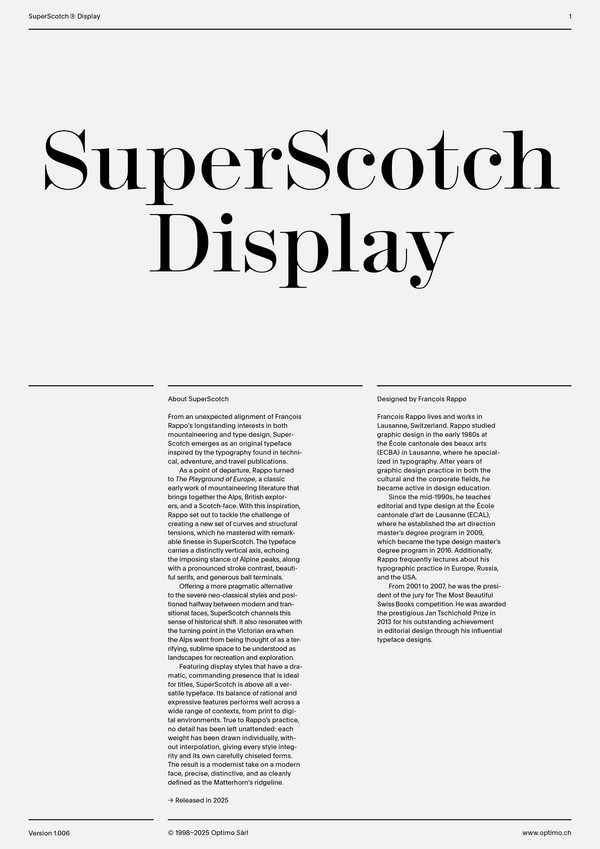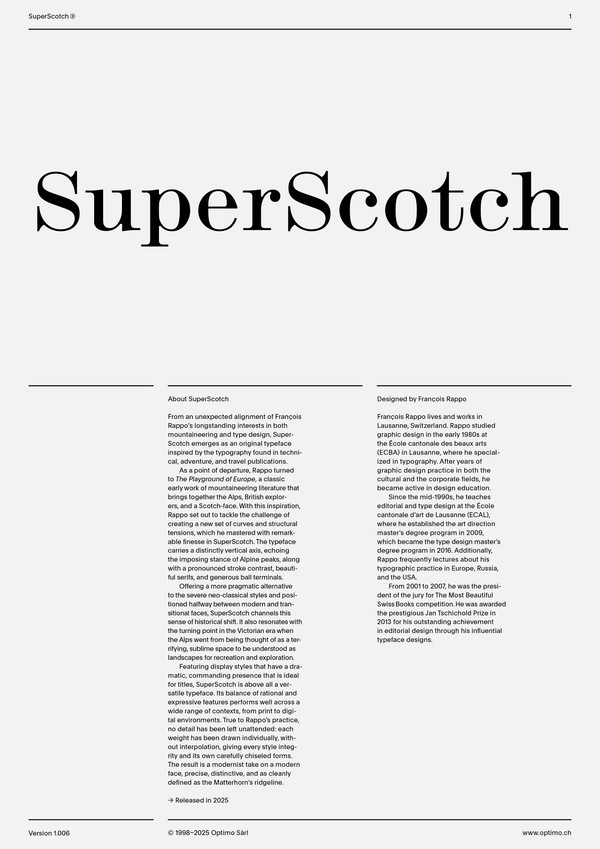
SuperScotch
SuperScotch Display
Case Sensitive Forms
All Caps [cpsp]
Case Sensitive Forms [case]
This function formats the text in uppercase and adjusts spacing between all capital letters. It also applies the ‘Case Sensitive Forms’ feature which replaces certain characters with alternates that are better suited for all capital text, especially related to punctuation.
Contextual Alternates
Contextual Alternates [calt]
This feature adapts the position of a glyph after its surrounding context. For instance, a dash placed between two uppercase letters or numbers will be replaced by an uppercase version of the dash, slightly higher. This feature is usually active by default in Adobe applications.
Alternate T
Stylistic Set 1 [ss01]
This feature replaces glyph(s) with stylistic alternate(s).
Alternate ?
Stylistic Set 2 [ss02]
This feature replaces glyph(s) with stylistic alternate(s).
Alternate 3 5
Stylistic Set 7 [ss07]
This feature replaces glyph(s) with stylistic alternate(s).
Alternate 4
Stylistic Set 8 [ss08]
This feature replaces glyph(s) with stylistic alternate(s).
Alternate g
Stylistic Set 9 [ss09]
This feature replaces glyph(s) with stylistic alternate(s).
Alternate a [uprights only]
Stylistic Set 10 [ss10]
This feature replaces glyph(s) with stylistic alternate(s).
Tabular Lining Figures
Tabular Lining Figures [tnum–lnum]
Based on the proportions of the capitals, lining figures have an invariable height. With the combination of the tabular spacing format, the width of each numeral is uniformized. This feature is useful when numerals need to all lined up. It facilitates the reading of numbers set within columns or tables. As some applications don’t have access to this feature, proportional figures are set as the default choice.
Proportional Oldstyle Figures
Proportional Oldstyle Figures [pnum–onum]
Based on the design of the lowercase, oldstyle figures have varying ascenders and descenders. Like most of the letters, each number has an appropriate width based on its shape. The combination of oldstyle figures with proportional setting generate numerals perfectly adapted for text.
Tabular Oldstyle Figures
Tabular Oldstyle Figures [tnum–onum]
Based on the design of the lowercase, oldstyle figures have varying ascenders and descenders. With the combination of the tabular spacing format, the width of each numeral is uniformized. This feature is useful when numerals need to all lined up. It facilitates the reading of numbers set within columns or tables.
Fractions
With this feature, any numbers separated by a slash will automatically turn into a fraction. To fit in fraction configuration, numerals have been designed smaller and their weights have been adjusted to suit the typeface.
Lowercase math symbols
Stylistic Set 6 [ss06]
This feature activates alternate lowercase positioning of mathematical symbols.
This feature replaces any letter following a numeral with its matching superior letters. French language uses the ordinal indicators such as ‘er’ for 1er premier, while Spanish, Portuguese and Italian require the feminine and masculine ordinals ‘a,’ ‘o’ for 1º, 1ª. Ordinals are designed to match the weight of the typeface.
Slashed Zero
Slashed Zero [zero]
Originally created to avoid the confusion between the ‘0’ and the ‘O’, this feature substitutes all zeros in a selected text by a slashed form of the zero.
Proportional Oldstyle Figures [onum]
Tabular figures are all of equal width. They are only needed when the figures must all line up from one line to the next, as in a table. Proportional figures have varying widths, just like most letters; each number has a width appropriate to its design. Lining figures are all the same height, usually similar to that of capital letters. They are needed for use with all-capital settings.
Featuring display styles that have a dramatic, commanding presence that is ideal for titles, SuperScotch is above all a versatile typeface. Its balance of rational and expressive features performs well across a wide range of contexts, from print to digital environments. True to Rappo’s practice, no detail has been left unattended: each weight has been drawn individually, without interpolation, giving every style integrity and its own carefully chiseled forms. The result is a modernist take on a modern face—precise, distinctive, and as cleanly defined as the Matterhorn’s ridgeline.